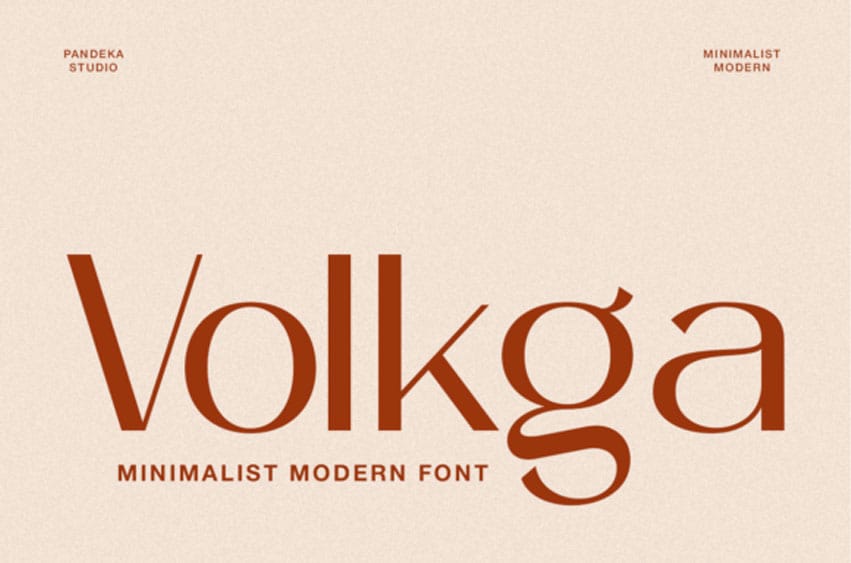
Volkga Font is a minimalist sans serif font with a clean, modern look, perfect for skincare, beauty, and lifestyle branding. Its regular style features simple geometric forms and balanced proportions, bringing a sense of elegance, clarity, and sophistication to every design.
It is ideal for logos, cosmetic packaging, product labels, social media graphics, and editorial design.
Elevate your skincare and beauty projects with Volkga, a sans-serif font that blends simplicity with modern charm for timeless and versatile branding.